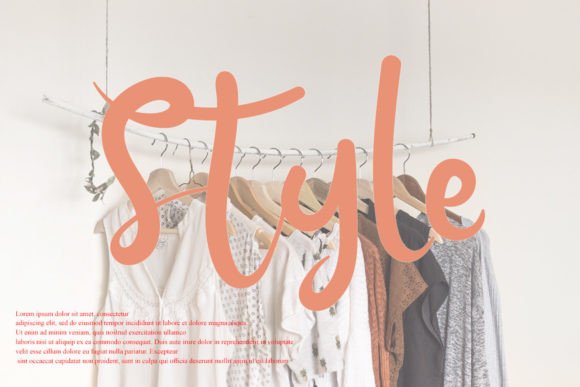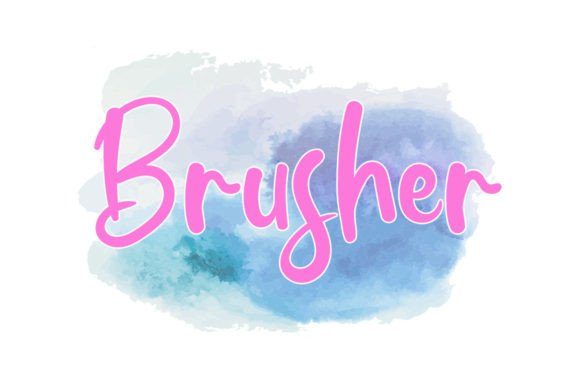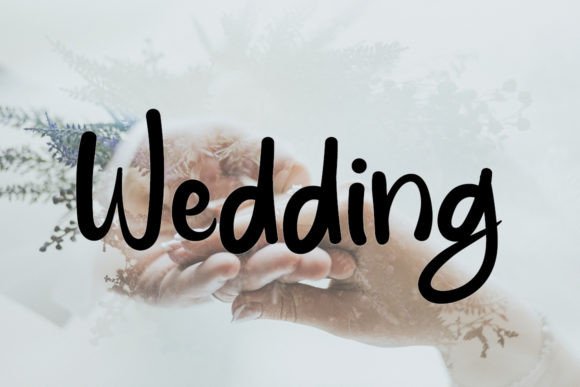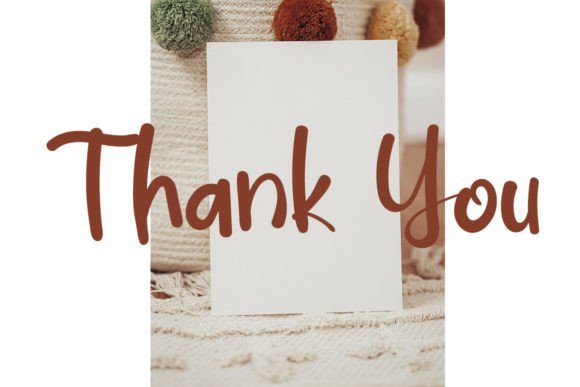
Introduction to Reasoning Font
As a designer, have you ever found yourself stuck in a creative rut, searching for the perfect font to elevate your project? I’m sure you have. For me, it’s a feeling of excitement and nervousness when I stumble upon a new, high-quality font that has the potential to take my design to the next level. And that’s exactly what happened when I discovered the beautiful Reasoning Font.
This elegant and sweet font is a game-changer for any creative project. Its fresh, clean design makes it perfect for both formal and informal projects, adding a joyful touch to your designs. Whether you’re working on a free download or a paid design resource, Reasoning Font is sure to make your business stand out.
With its transparent background and versatile style, Reasoning Font is a valuable asset for any designer looking to simplify their design process while adding a touch of sophistication.
Key Features of Reasoning Font
- High-quality, professional font suitable for creative projects and design resources.
- Transparent background option for seamless integration with various design elements.
- Includes 100+ unique characters and glyphs for versatility in design projects.
Honest Review: Reasoning Font
I recently had the chance to work with the Reasoning Font, and I must say, it’s a great addition to any designer’s toolkit. One of the standout features is its high quality, making it perfect for creative projects that demand attention to detail. The font’s clear and legible design ensures that your message gets across, even on complex layouts.
- High-quality design suitable for creative projects
- Transparent background for easy editing and customization
- Perfect for both print and digital applications
- The font is quite straightforward, so it may not be suitable for projects that require a lot of flair or personality
Overall, I’m impressed with the Reasoning Font. It’s a solid choice for designers who need a reliable, high-quality font that’s easy to work with. While it may not be the most exciting or unique font, it gets the job done and is a valuable addition to any design resource library.
Reasoning Font
The Reasoning Font is a high-quality design resource ideal for creative projects. This versatile font features a transparent background, making it easy to use in various design applications.